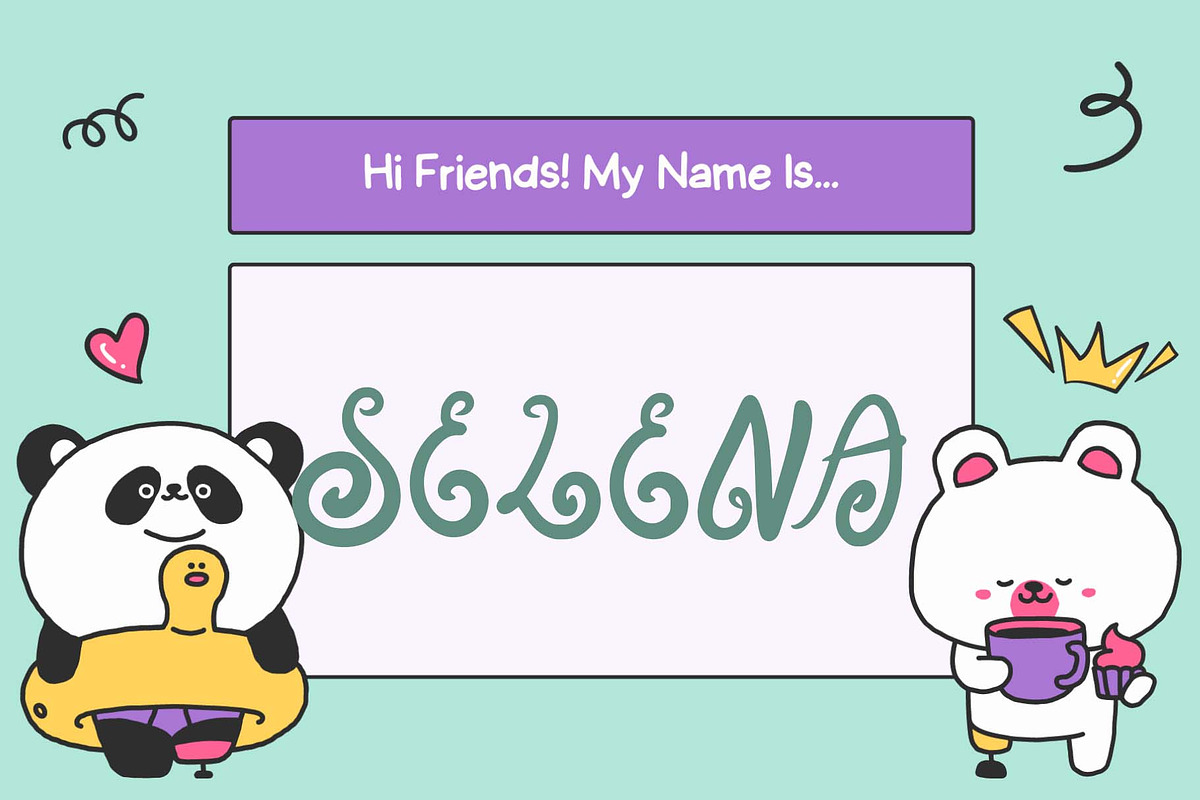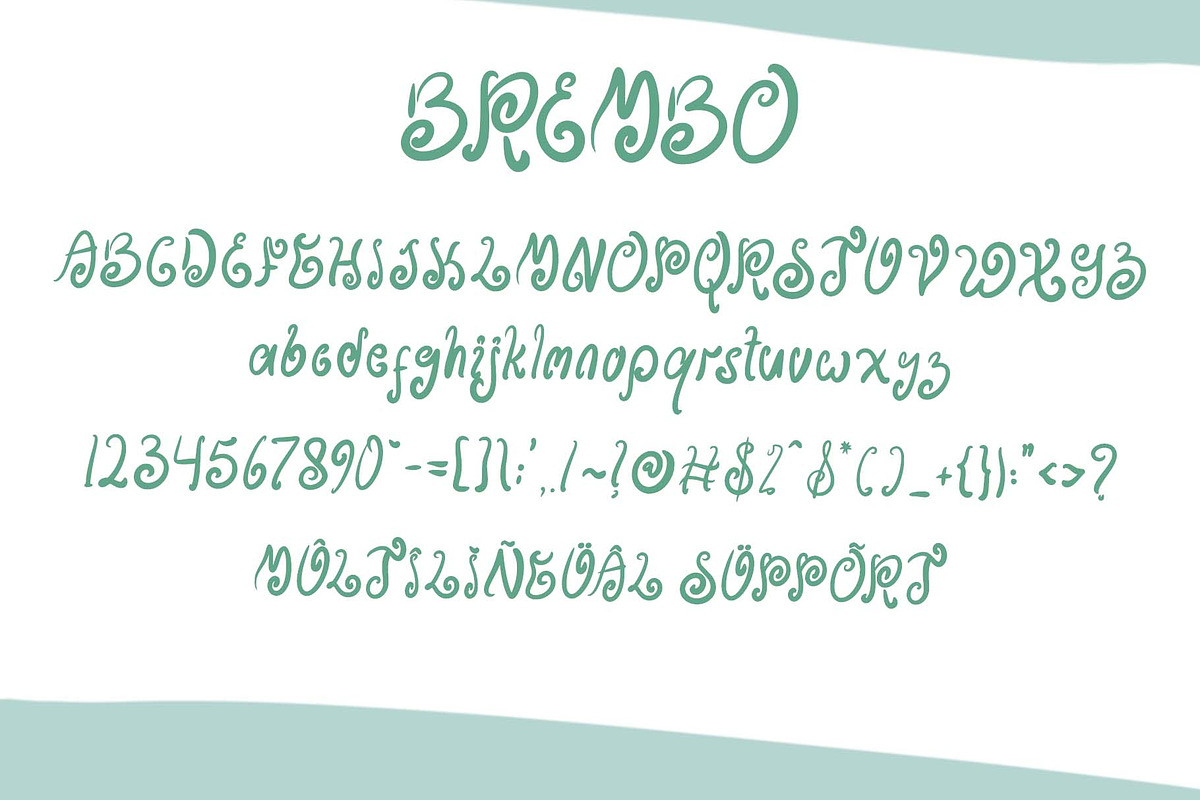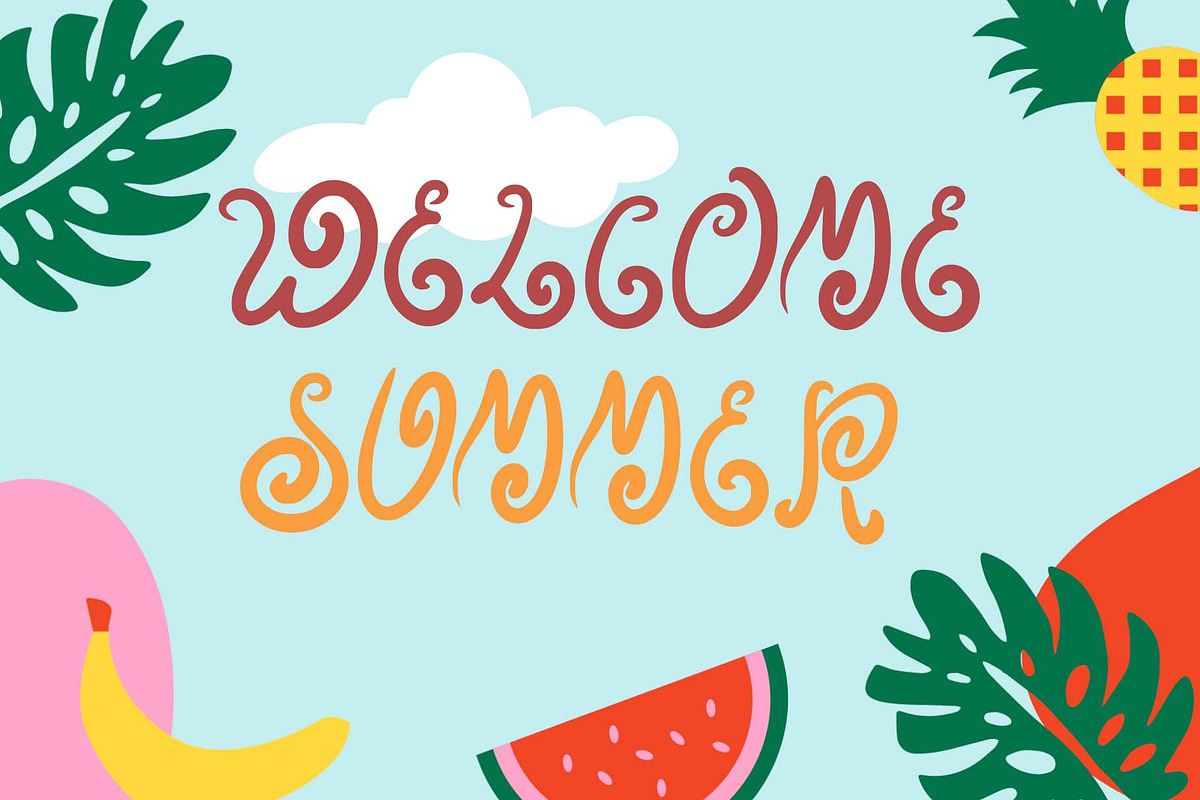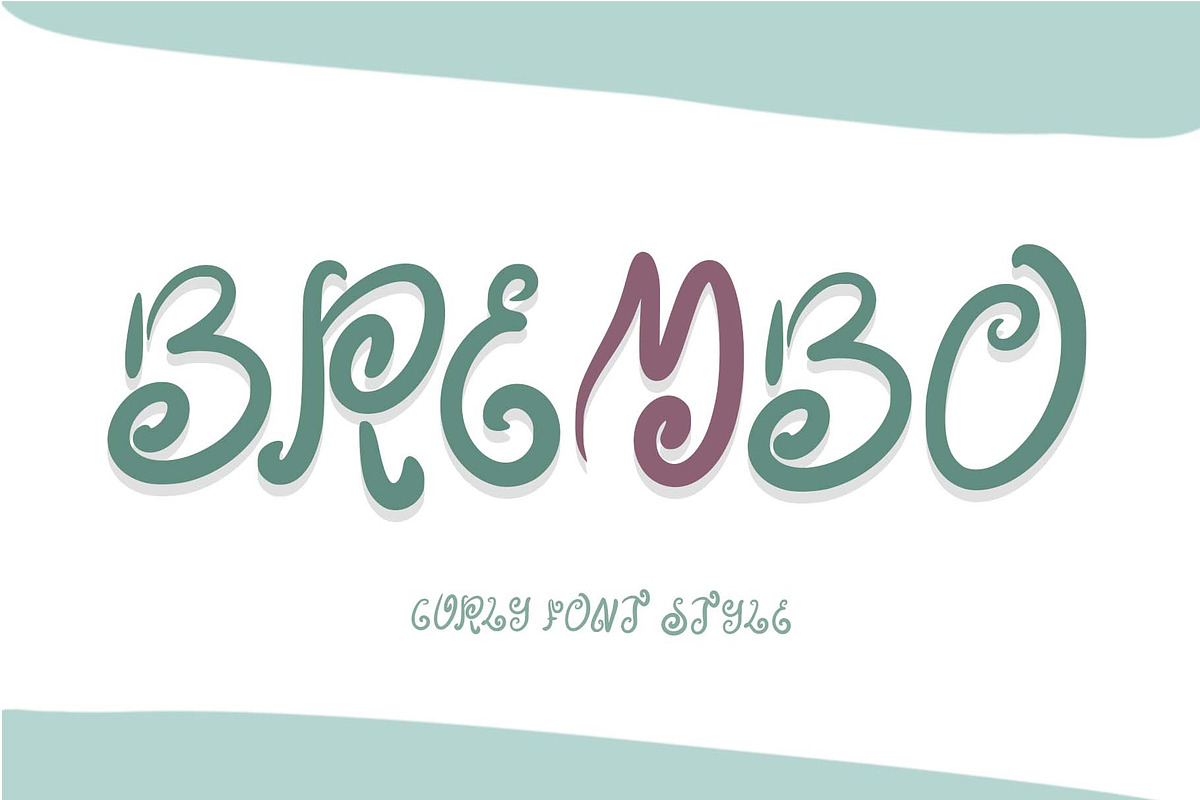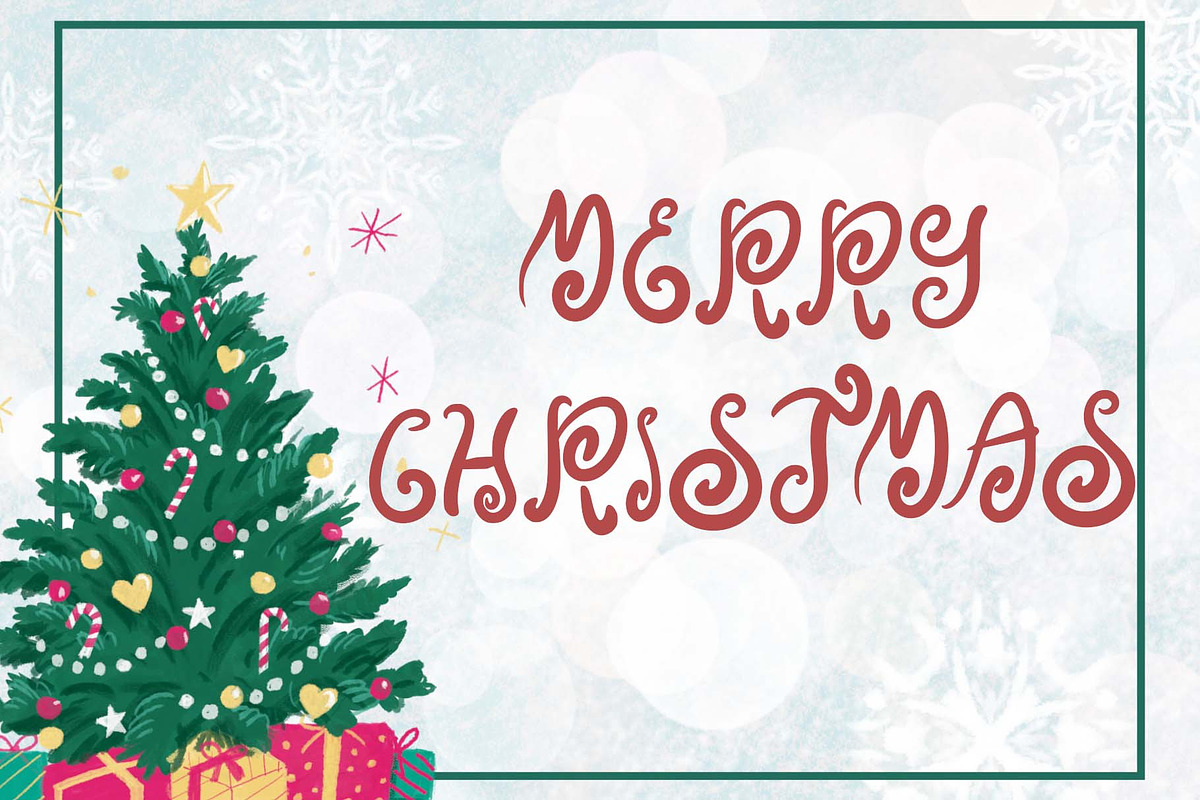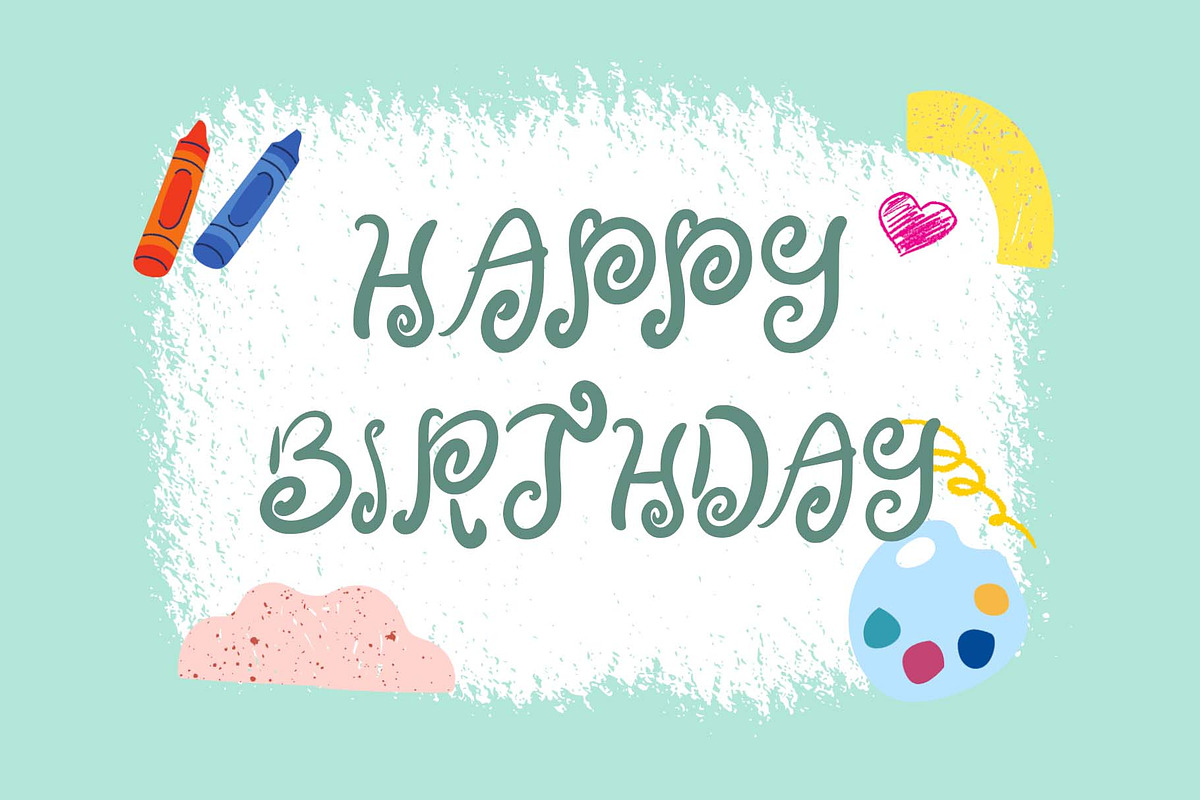
Brembo
"Brembo" is a font with a curly style. This font is very unique and elegant. It is suitable for various needs, such as writing on children's themes, animals, learning, Christmas, summer, holidays, book titles, film titles, Halloween, and others. This font is equipped with uppercase, lowercase, numerals, punctuation, and multilingual support.